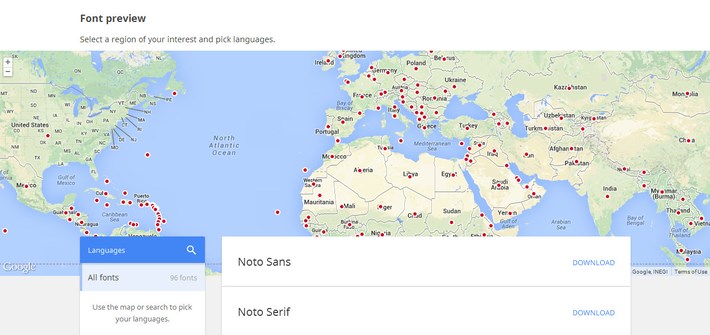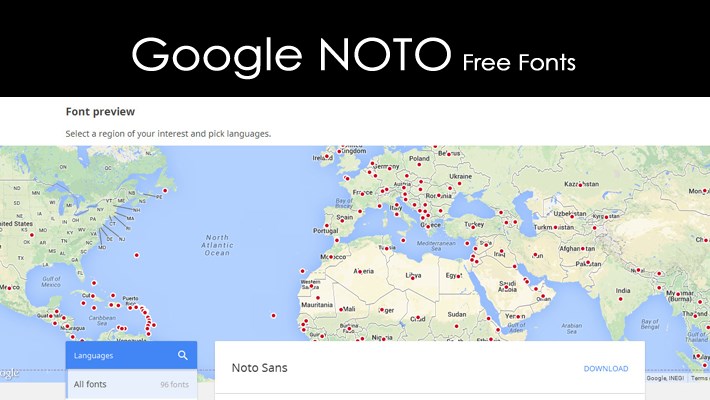
Google Noto Free Font for All Languages
Google Noto free font
Google Noto free font family that goal to help and support all the world’s languages. It is design goals can be to achieve visual harmonization across languages. Google Noto free font are under Apache License 2.0.
Noto Sans CJK is a sans serif typeface designed as more advanced style between the modern and traditional. It is intended to be a multi-purpose digital font for user interface designs, digital content, reading on laptops, mobile devices, and electronic books. Now Noto covers all main languages of the world.
Google Noto free font